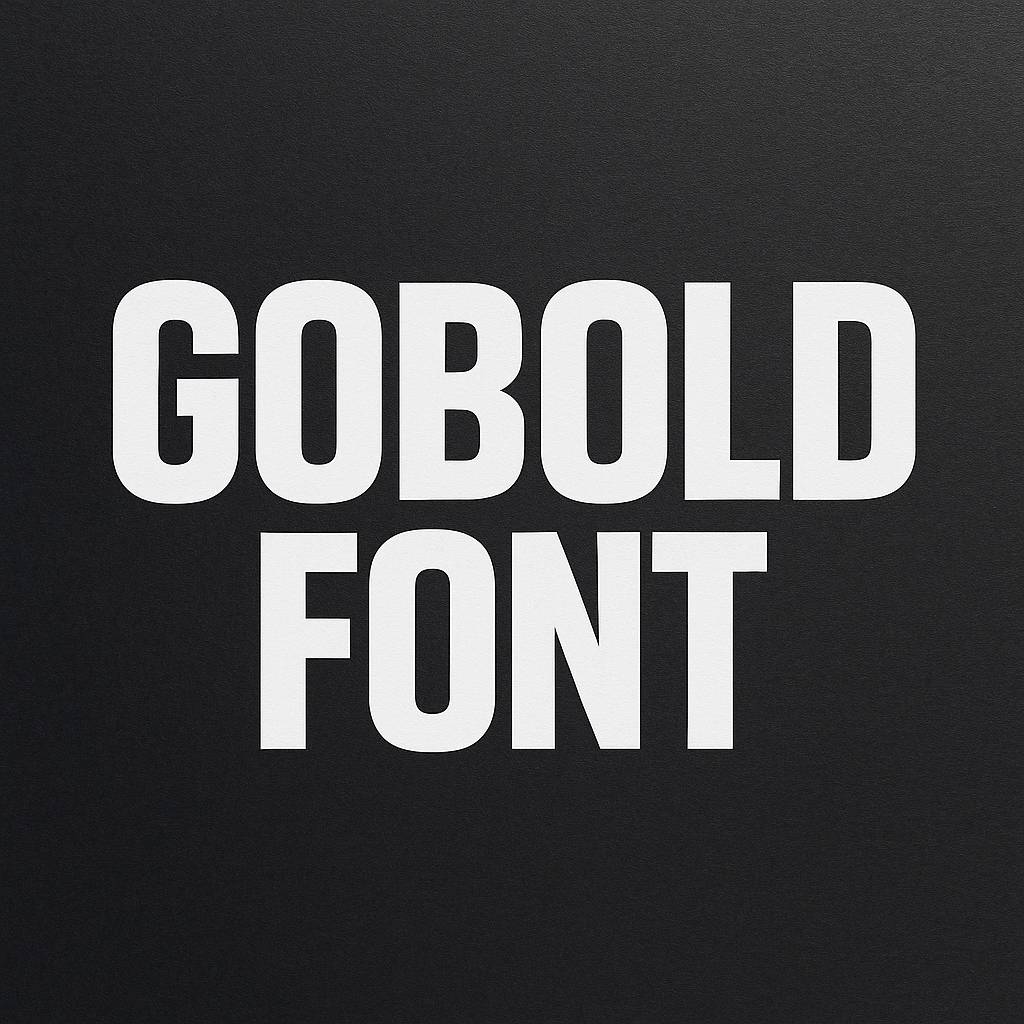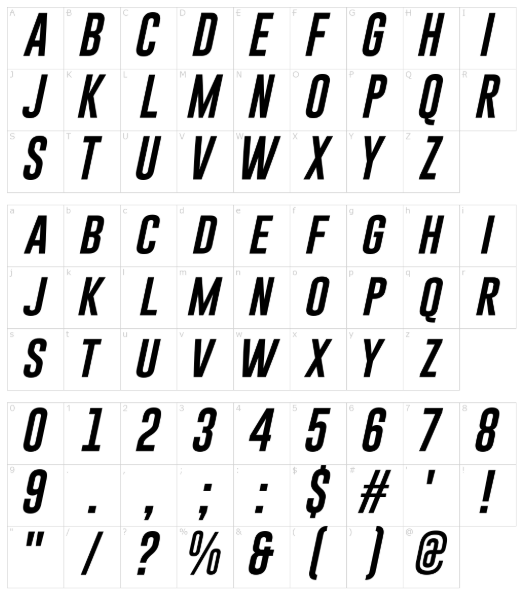
The Gobold font stands out as a typographic choice among thousands of options due to its powerful combination of modern style and bold design. The wide range of applications means Gobold provides substantial value to designers working on branding and posters, and web-based projects. This article will investigate the background of this font as well as its essential characteristics and applications, and substitute options to help you decide on its suitability for your upcoming project.
Overview of Gobold Font
The sans-serif typeface Gobold was created with the specific intention to produce loud and resilient visual displays. The typeface contains over 28 different styles across its family, which provides users a wide range of weights from ultra-thin to extra-bold, so designers can easily use it in multiple design situations.
The font is known for its:
- Geometric structure
- Clean lines
- High readability in larger sizes
- Modern and futuristic appeal
Its well-balanced design and stylistic versatility make it an asset in advertising, branding, tech products, and pop-culture projects.
| Designer | Situjuh Nazara |
| Category | Sans-serif, Display |
| Styles Available | 28+ (Bold, Thin, Hollow, Lowplus, Highplus, etc.) |
Key Features of Gobold Font
What sets Gobold apart is its design richness. Here are the key features that make it a standout typeface:
1. Extensive Font Family
Gobold includes more than two dozen variations, such as:
- Gobold Bold
- Gobold Thin
- Gobold Hollow
- Gobold Lowplus
- Gobold Highplus
This wide range allows designers to maintain visual consistency while still offering hierarchy and stylistic variation.
2. Geometric Precision
Gobold’s base letterforms rely on geometric shapes, giving the typeface a balanced and sleek appearance. This precision aids in both legibility and modern aesthetic appeal.
3. High Versatility
Thanks to its extensive style set, Gobold can be used in everything from logos and headlines to event posters and digital ads. It also performs well in both uppercase and lowercase settings, though its uppercase is particularly bold and eye-catching.
Applications of Gobold Font
Because of its bold and impactful look, Gobold is especially effective in:
1. Branding and Logo Design
Many startups and creators choose Gobold to represent a strong, youthful brand identity. Its clean lines and modern edge make it perfect for logos, especially in the technology, entertainment, and fashion industries.
2. YouTube Thumbnails and Video Titles
Gobold has become a favorite among content creators for designing thumbnails, intro slides, and titles. Its bold nature ensures that text remains legible even at small screen sizes.
3. Posters and Advertising
Whether you’re designing a concert poster or an event flyer, Gobold’s display qualities make it excellent for large-format text. It commands attention and adds drama to the design.
4. Web Design and UI/UX
Though not typically used in body text, Gobold works wonderfully for headers, CTA buttons, and hero sections in web design.
5. Merchandise and Print Media
T-shirts, mugs, and other merchandise items often feature catchy, bold phrases. Gobold’s readability and character make it an ideal choice for these print applications.
Alternatives to Gobold Font
While Gobold is a fantastic font, it’s always good to have a few alternatives in your toolkit. Here are some similar fonts you can consider:
1. Bebas Neue
A clean, bold sans-serif typeface perfect for headlines. It shares the same modern aesthetic but is slightly more condensed.
2. League Spartan
A geometric sans-serif with thick strokes and sharp edges, ideal for web and print use.
3. Nexa
A professional font family offering a wide range of weights, Nexa is slightly more neutral but very flexible.
4. Montserrat
If you’re looking for a web-optimized alternative with both elegance and strength, Montserrat is a great pick.
5. Oswald
This reworking of the classic gothic typefaces offers strong verticality and sharpness similar to Gobold, making it a solid substitute.
Conclusion
Gobold font represents a typeface that attracts attention, making it suitable for contemporary branding projects alongside digital media and creative artwork.
Gobold stands out from other typefaces because of its multiple font styles, along with free personal licenses and design flexibility across different platforms. Whether you’re launching a startup, creating a music poster, or designing YouTube visuals, Gobold gives you the visual muscle to make your content stand out.